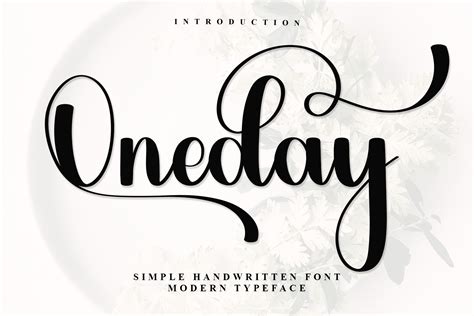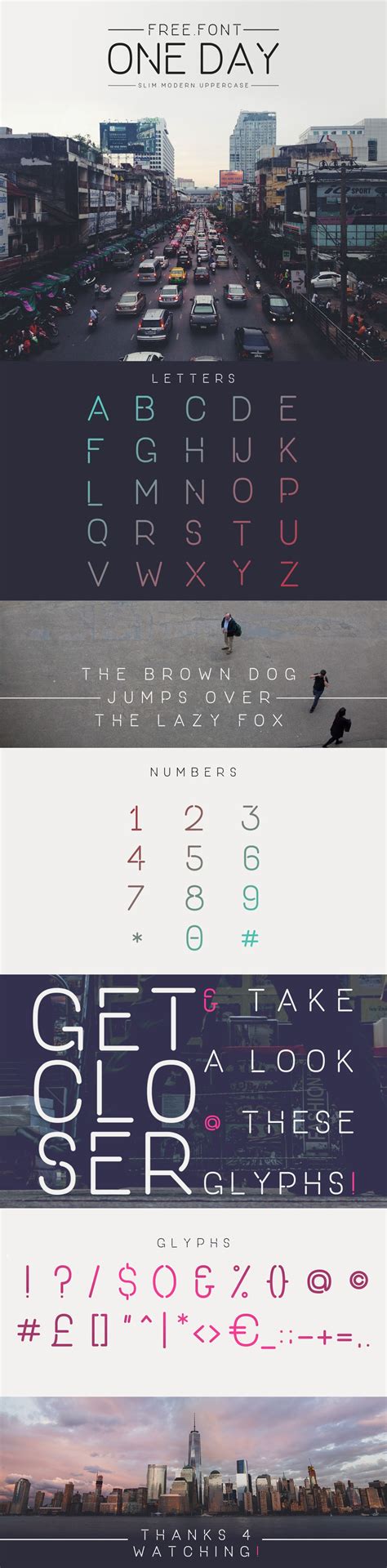
Best 17+ Free Oneday Free Font
Scouring the internet for the perfect typography often eats up more time than the actual design phase. I once spent three hours comparing sans-serifs for a rapid 24-hour turnaround project. That frustration led me to compile the Best 17+ Free Oneday Free Font directory for my studio, ensuring we never have to start from scratch. Having a reliable, pre-vetted list of typefaces saves you from endless scrolling and lets you focus strictly on layout and hierarchy.
Curating the Best 17+ Free Oneday Free Font Collection
When you need a typeface that performs immediately, you have to look beyond basic aesthetics. In my experience, functional typography hinges on legibility and versatile weight options. I’ve tested hundreds of open-source typefaces, and many fall apart at smaller sizes due to poor hinting or cramped counters. The ones that made the Best 17+ Free Oneday Free Font list survive heavy body copy and tight tracking without breaking a sweat. Here’s the thing: a typeface needs to work as hard as you do during a rapid design sprint.
Font FamilyBest Use CaseWeight Range
OnedayDisplay & HeadersRegular & Bold
How I Tested the Best 17+ Free Oneday Free Font Pack
Building a dependable type stack requires rigorous real-world testing. I didn’t just look at these characters on a pristine white canvas. I threw them into dense paragraphs, stretched them across mobile banners, and printed them out to check the ink traps. Honestly, some highly popular fonts failed miserably when paired with tight letter-spacing in dark mode. That said, the curated list below represents the typefaces that held up under pressure.
• Oneday: A clean, geometric display face that carries personality without sacrificing geometry.
There are tradeoffs to relying entirely on free typography. You often miss out on the extensive language support and alternate glyphs that premium foundries provide. I've found that free fonts sometimes lack the nuanced optical sizing adjustments needed for large-scale print. However, for digital products and rapid web deployment, the gap between free and premium is closing fast. The typefaces in this collection feature kerning pairs and OpenType features that rival paid alternatives.